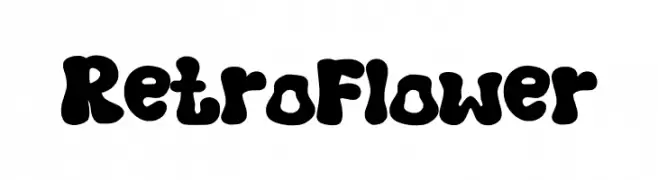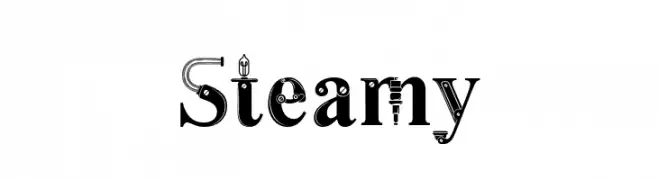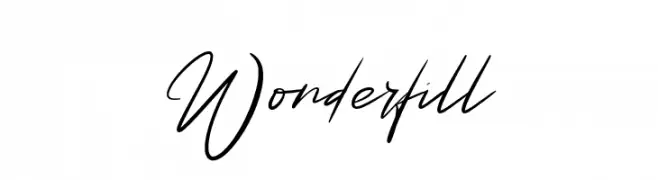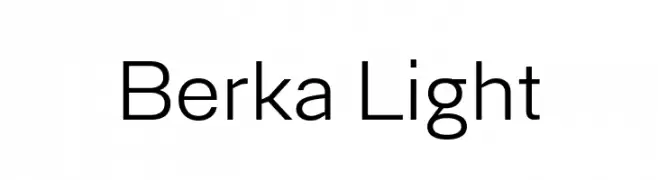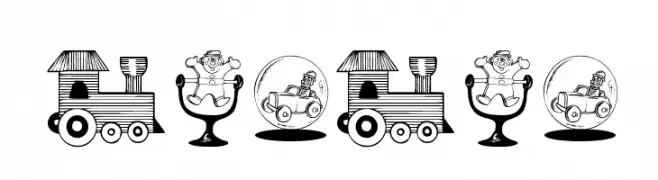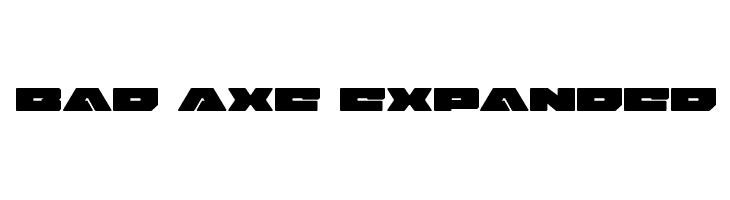
A bold, rounded, and playful retro font with a nostalgic 60s and 70s vibe.
A playful, handwritten font with a whimsical and casual style.
An elegant and flowing script font with graceful curves and sophisticated flair.
A steampunk-inspired decorative font with mechanical elements and vintage flair.
Elegant cursive script font with a handwritten style.
A dynamic and fluid script font with elegant, flowing cursive letters.
Bold, decorative font with a playful, retro style.
A bold, decorative font with a three-dimensional, layered outline effect.
A clean, modern sans-serif font with uniform stroke width and excellent legibility.
A decorative font where each character is a detailed toy illustration.